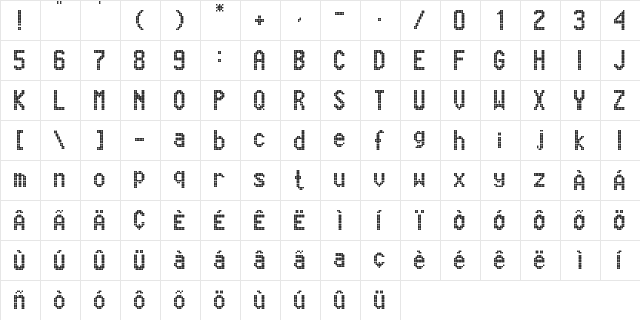
Marcopolo 13x9 Regular
Design Context for Marcopolo 13x9 Typeface
Marcopolo 13x9 is a composed and adaptable typeface that performs quietly and consistently across a wide range of design contexts.